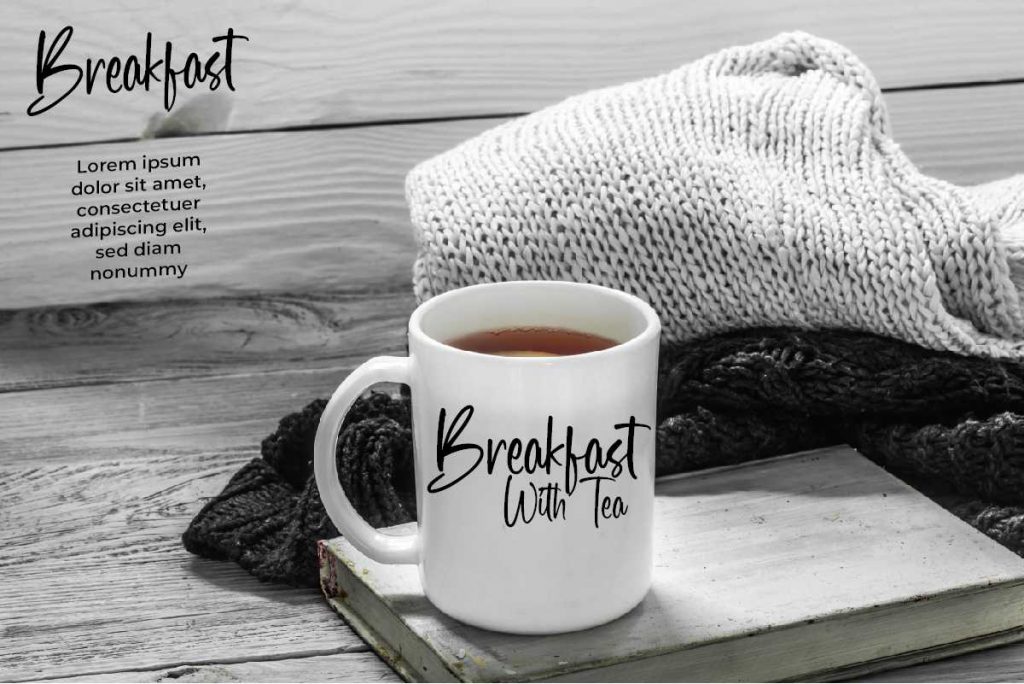
Hello Blushing Font By Noahtype Studio
Hello Blushing Font By Noahtype Studio Hello blushing font is a stunning handwriting calligraphy font with a stylish characters. this font is crafted carefully in every its single scratch, created to look as close to a flawless handwritten script so that it can create the perfect combination on each glyph. Font demo ini hanya dapat digunakan untuk keperluan "personal use" kebutuhan pribadi, dan untuk keperluan yang sifatnya tidak "komersil", alias tidak menghasilkan profit atau keuntungan dari hasil memanfaatkan menggunakan font kami.
Hello Blushing Font By Noahtype Studio Download free hello blushing font, view its character map and generate text based images or logos with hello blushing font online. Hello blushing is a free font for personal use created by noah type. hello blushing is a script type font that can be used on any device such as pc, mac, linux, ios and android. Hello blushing font is a stunning handwritten font with stylish characters. this font is crafted carefully in every single scratch, created to look as close to a flawless handwritten script as possible so that it can create the perfect combination on each glyph. Hello blushing font is a stunning handwriting calligraphy font with a stylish characters. this font is crafted carefully in every its single scratch, created to look as close to a flawless handwritten script so that it can create the perfect combination on each glyph. Looking for hello blushing font designed by noah type? click here to download the font or create a custom image with your own text online. The hello blushing demo font by noah type is a captivating script typeface that embodies a blend of elegance and playfulness. characterized by its fluid strokes and charming curves, this handwritten font exudes a warm and inviting atmosphere.